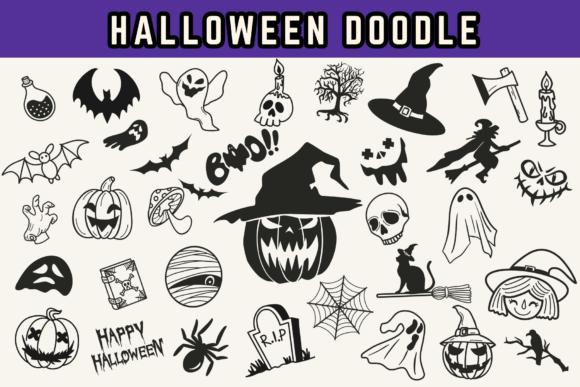
Halloween Doodle Font: Add a Spooky Charm to Your Creative Projects
Are you looking for a unique and playful font to add a spooky charm to your Halloween-themed creative projects? Look no further than the Halloween Doodle Font! This fun and creepy doodle-style typeface is filled with hand-drawn Halloween illustrations, making it perfect for party invitations, greeting cards, posters, t-shirts, stickers, and all Halloween crafts.
What is Halloween Doodle Font?
Halloween Doodle Font is a specially designed typeface that features hand-drawn Halloween illustrations, including ghosts, pumpkins, bats, witches, skulls, spiders, and black cats. The font is created in a doodle style, giving it a playful and whimsical feel that’s perfect for Halloween-themed projects.
The font is made up of a collection of illustrations that can be used to create a wide range of Halloween-themed designs. Each letter of the alphabet is designed to incorporate one or more Halloween illustrations, making it easy to create spooky and festive text.
Features of Halloween Doodle Font
The Halloween Doodle Font comes with a range of features that make it perfect for creative projects. Some of the key features include:
- Hand-drawn Halloween illustrations, including ghosts, pumpkins, bats, witches, skulls, spiders, and black cats
- Doodle-style design gives the font a playful and whimsical feel
- Perfect for party invitations, greeting cards, posters, t-shirts, stickers, and all Halloween crafts
- Easy to use and customize
Uses of Halloween Doodle Font
The Halloween Doodle Font is a versatile font that can be used for a wide range of creative projects. Some of the most popular uses for the font include:
- Party invitations: Create spooky and festive party invitations that will set the tone for your Halloween party.
- Greeting cards: Design unique and personalized greeting cards for friends and family.
- Posters: Create eye-catching posters for Halloween events, parties, or promotions.
- T-shirts: Design spooky and festive t-shirts that are perfect for Halloween.
- Stickers: Create fun and spooky stickers that can be used to decorate laptops, water bottles, or any other surface.
- Halloween crafts: Use the font to create spooky and festive text for Halloween crafts, such as pumpkin carvings, ghostly decorations, or spooky centerpieces.
Benefits of Using Halloween Doodle Font
There are many benefits to using the Halloween Doodle Font for your creative projects. Some of the key benefits include:
- Unique and playful design: The font features a unique and playful design that’s sure to stand out.
- Easy to use: The font is easy to use and customize, making it perfect for designers of all levels.
- Versatile: The font can be used for a wide range of creative projects, from party invitations to t-shirts.
- Festive and spooky: The font is perfect for adding a spooky and festive touch to your Halloween-themed projects.
Tips and Tricks for Using Halloween Doodle Font
Here are some tips and tricks for using the Halloween Doodle Font:
- Experiment with different colors: Experiment with different colors to create a unique and eye-catching design.
- Mix and match illustrations: Mix and match illustrations to create a unique and playful design.
- Use the font in combination with other fonts: Use the Halloween Doodle Font in combination with other fonts to create a unique and visually appealing design.
- Pay attention to font size: Pay attention to font size to ensure that your design is clear and easy to read.
The Halloween Doodle Font is a fun and creepy doodle-style typeface that’s perfect for adding a spooky charm to your Halloween-themed creative projects. With its hand-drawn Halloween illustrations and playful design, this font is sure to stand out. Whether you’re creating party invitations, greeting cards, posters, t-shirts, or stickers, the Halloween Doodle Font is a versatile and easy-to-use font that’s perfect for designers of all levels.